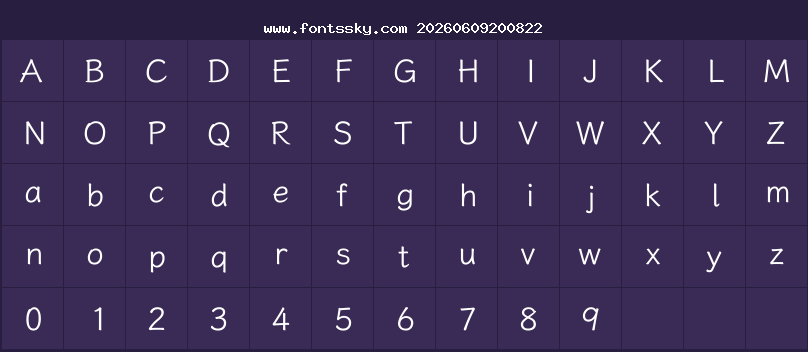
霞鶩文楷 TC Preview
• Font Name: 霞鶩文楷 TC
• Full Font Name: LXGW WenKai TC Regular
• PostScript Name: LXGWWenKaiTC-Regular
• Designer: LXGW / Fontworks Inc.
• Manufacturer: LXGW / Fontworks Inc.
About 霞鶩文楷 TC.ttf
霞鶩文楷 TC.ttf is a modern, elegant sans-serif font designed for ultimate readability and visual harmony. Perfect for branding, headlines, web design, and print materials.